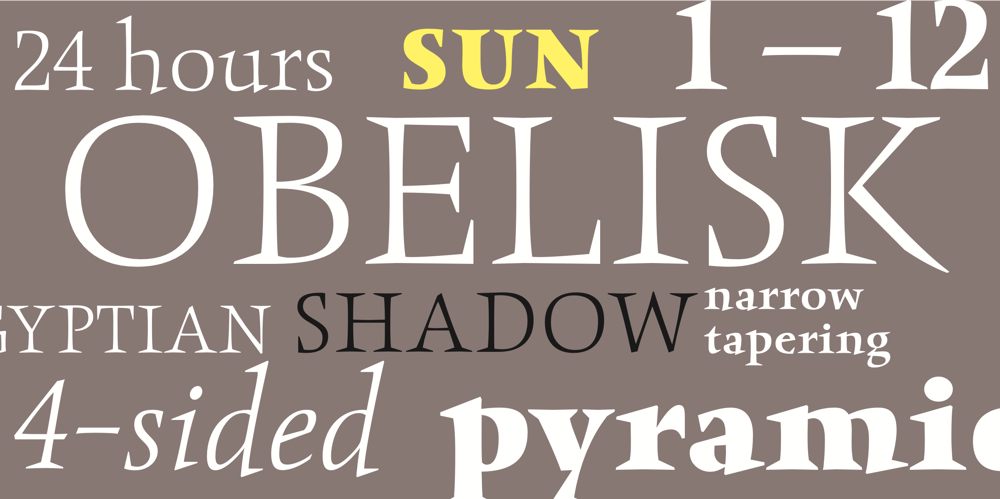
ITC Obelisk Font Family was designed by Phill Grimshaw and published by ITC. ITC Obelisk contains 5 styles and family package options. ITC Obelisk is the work of British designer Phill Grimshaw. He classified his typeface as glyphic” in style, meaning chiseled rather than calligraphic in form. ITC Obelisk is a legible, elegant text typeface.”